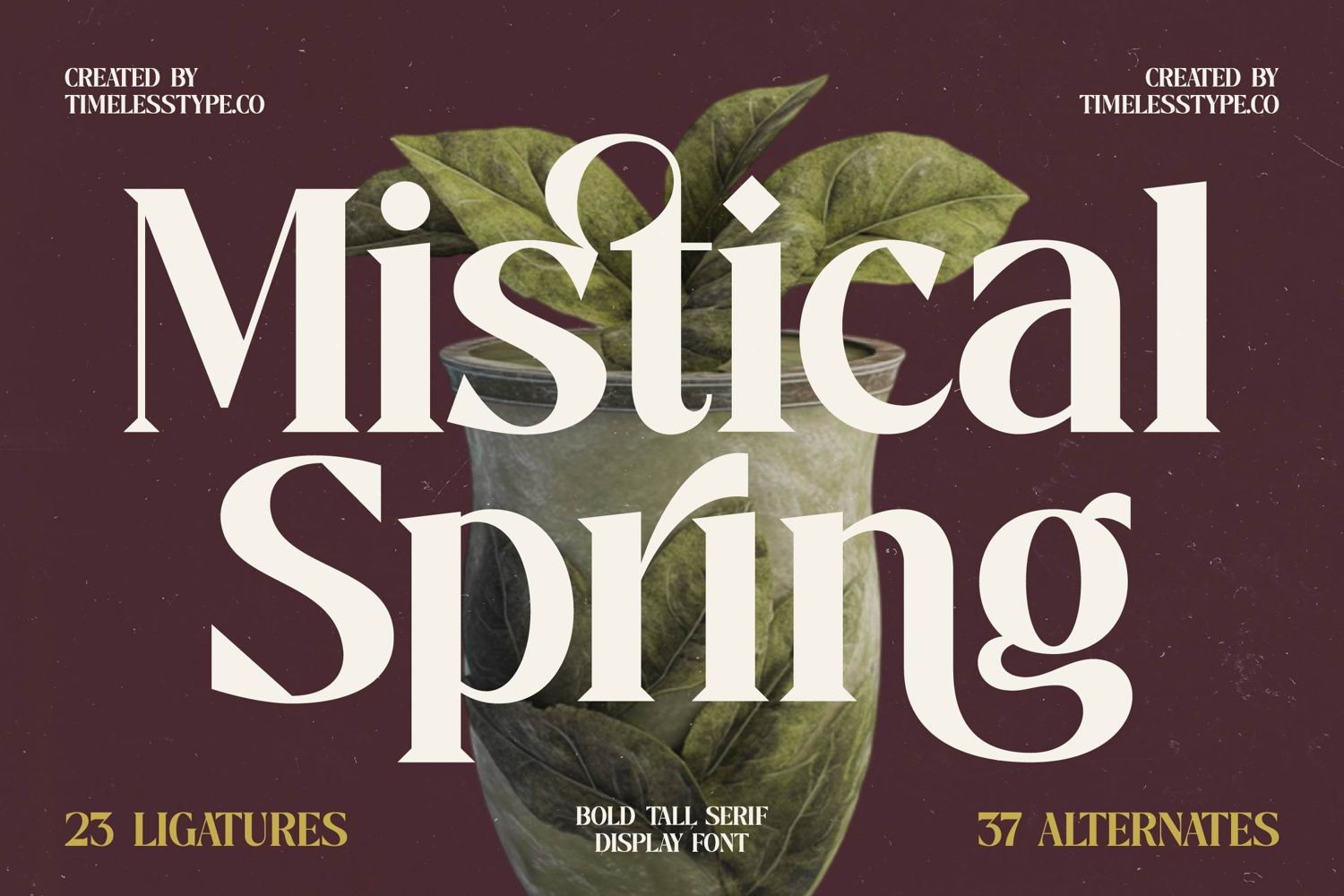
Mistical Spring - Bold Tall Serif Display Font
Mistical Spring Italic
Mistical Spring
Mistical Spring - Bold Tall Serif Display Font
Elevate your designs with timeless elegance and a touch of modern grandeur. Introducing Font Mistical Spring - Bold Tall Serif Display Font Serif Display, a sophisticated typeface crafted to deliver immediate visual impact. Its distinctive bold tall serif display font style, characterized by elegant, high-contrast strokes and refined serifs, exudes a powerful sense of sophistication, making it the ultimate choice for projects demanding an elevated aesthetic.
Discover unparalleled versatility and intricate design possibilities with Font Mistical Spring - Bold Tall Serif Display Font Serif Display. Boasting 23 captivating ligatures and 37 extensive alternates, this font allows for truly unique typographic expressions that command attention. With its extensive multilingual support, Font Mistical Spring - Bold Tall Serif Display Font Serif Display adapts seamlessly across global markets, making it incredibly versatile for international projects.
Unleash the full potential of your brand and creative ventures. Font Mistical Spring - Bold Tall Serif Display Font Serif Display is perfectly suited for luxury branding, high-end packaging, and prestigious editorial design. It shines brightly in fashion magazines, elegant invitations, impactful logo design, and captivating headline typography, consistently delivering a refined and premium aesthetic that resonates with discerning audiences.
Transform ordinary into extraordinary and leave a lasting impression. Embrace the distinctive charm and artistic flair of Font Mistical Spring - Bold Tall Serif Display Font Serif Display to create memorable visual narratives. This typeface is not just a font; it's a statement, designed to set your work apart with its inherent grace and contemporary appeal.